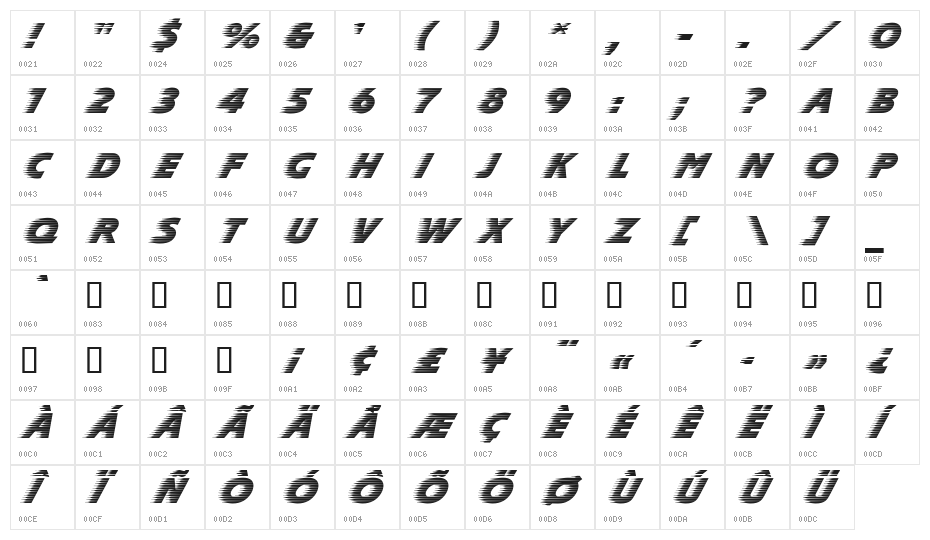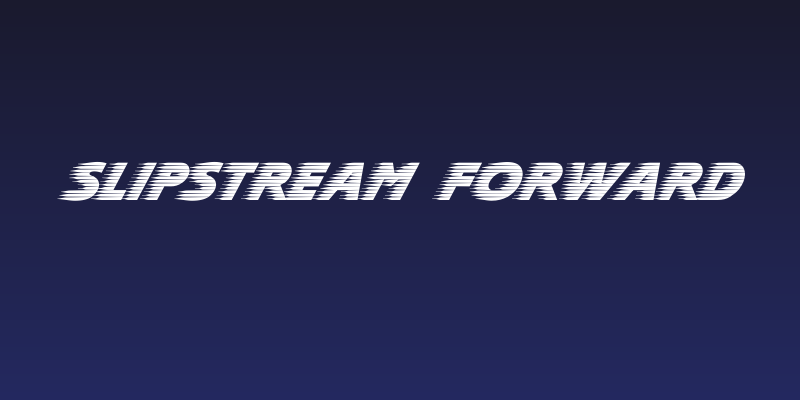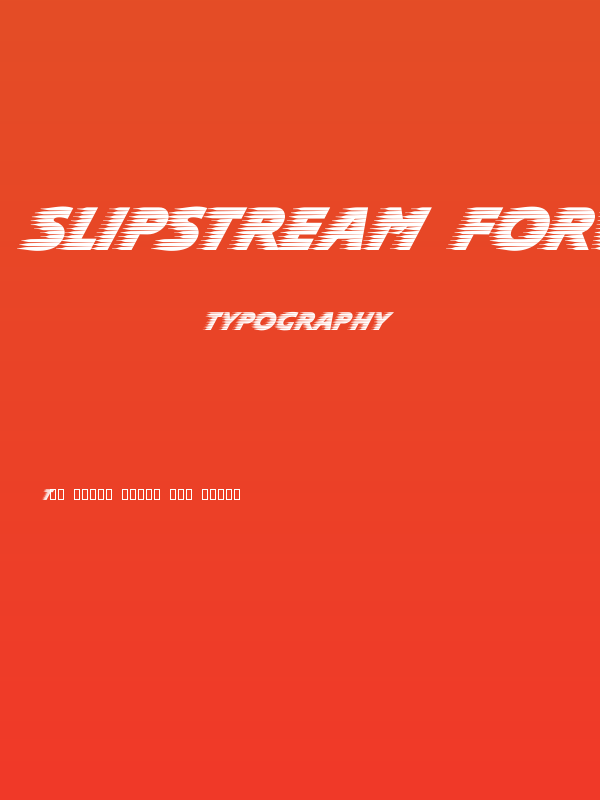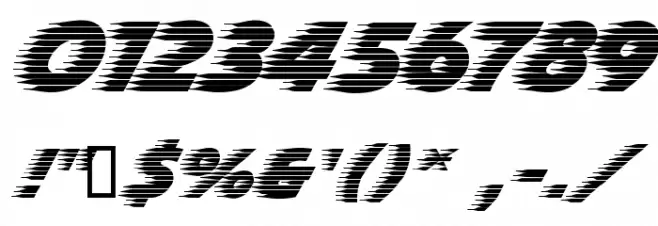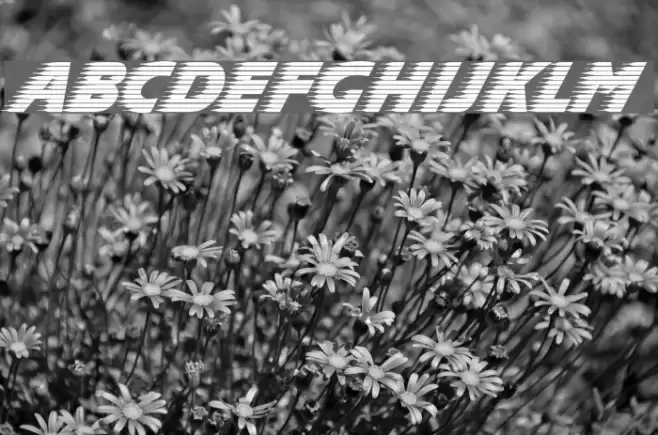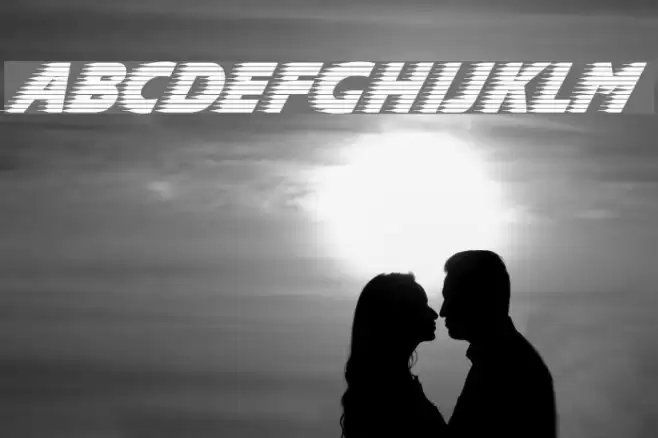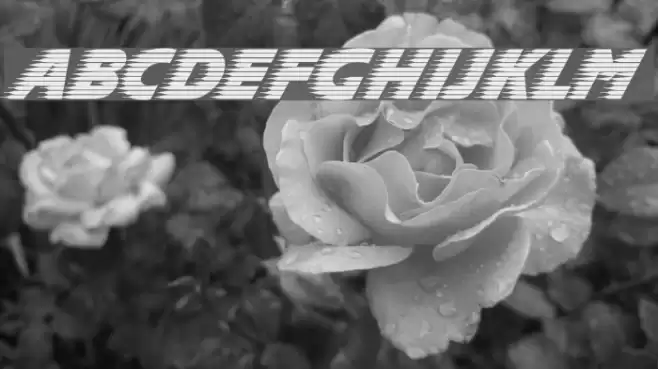
Slipstream Forward Font
Slipstream Forward Description
This dynamic and bold font features a distinctive forward-slanting design with horizontal lines cutting through each character, creating a sense of motion and speed. The uppercase letters are prominent and impactful, while the numerals and special characters maintain the same energetic style. The font's unique appearance makes it ideal for projects that require a sense of urgency or modernity. Its design is particularly suited for sports branding, automotive advertisements, or any creative work that seeks to convey movement and excitement.
| Proposed Projects | Ideal for sports branding, automotive advertisements, dynamic posters, and modern digital media. |